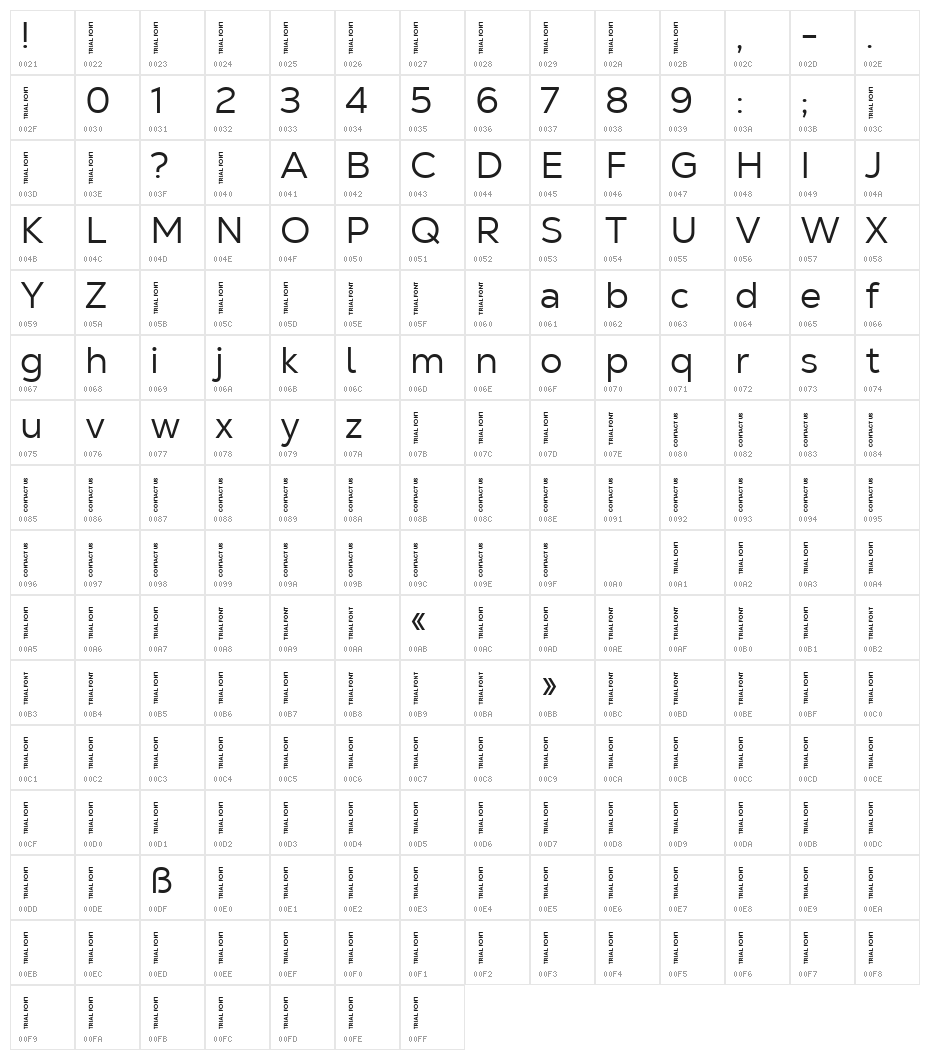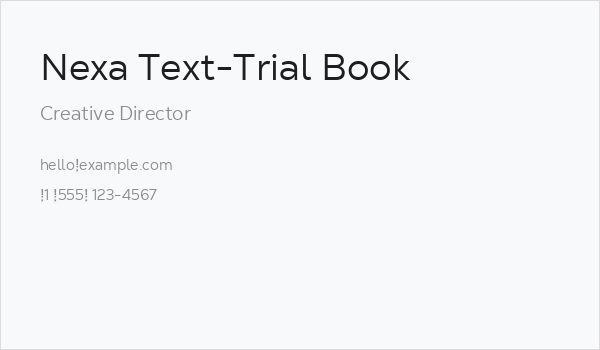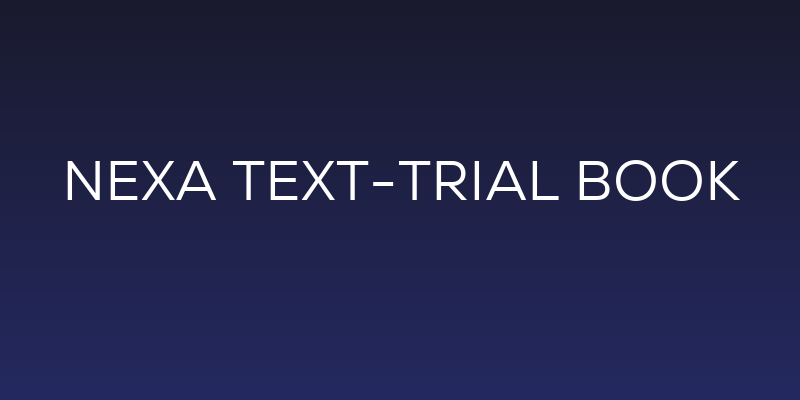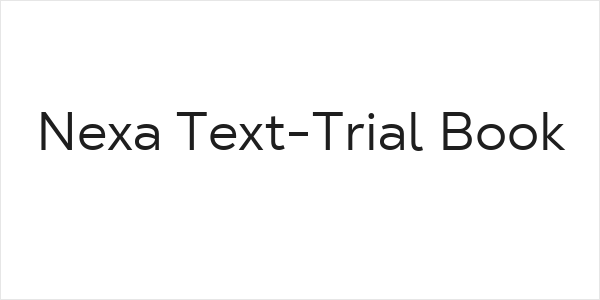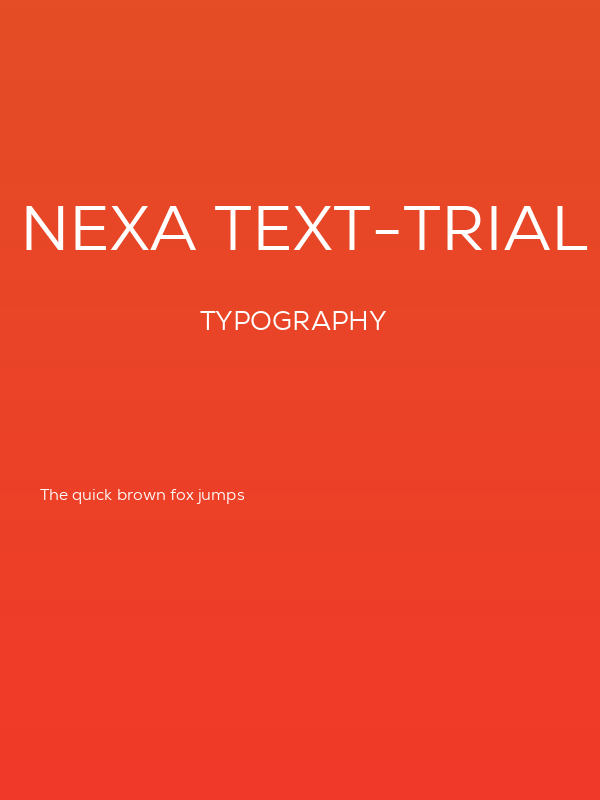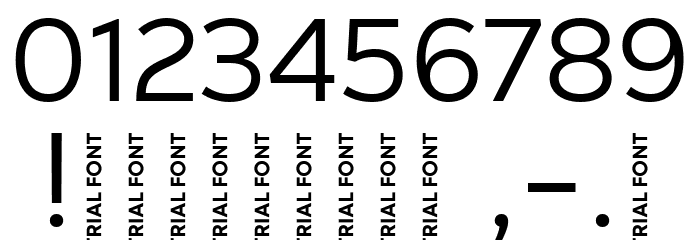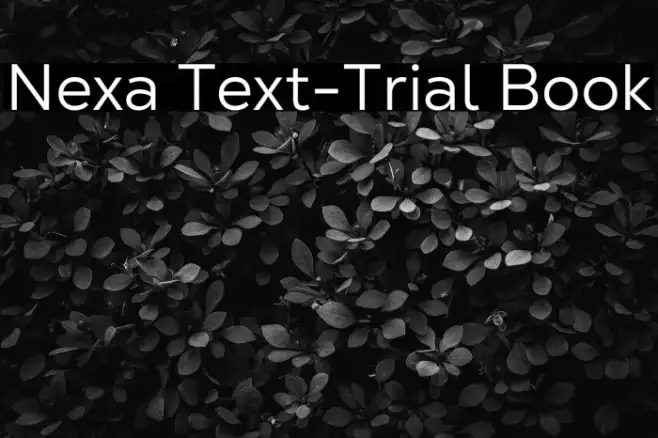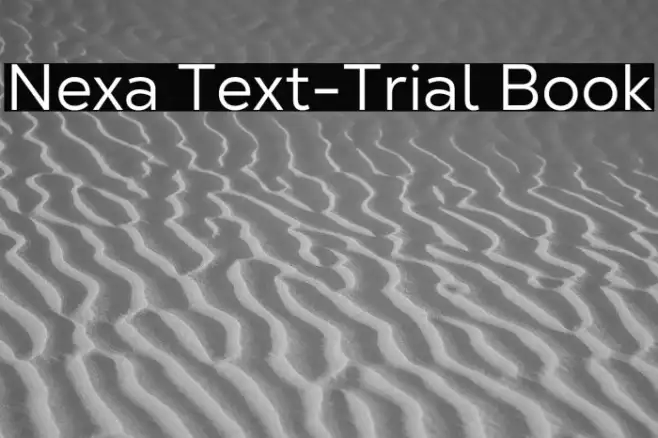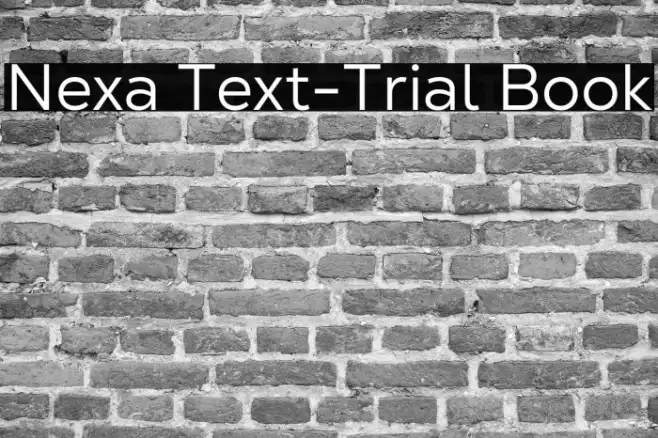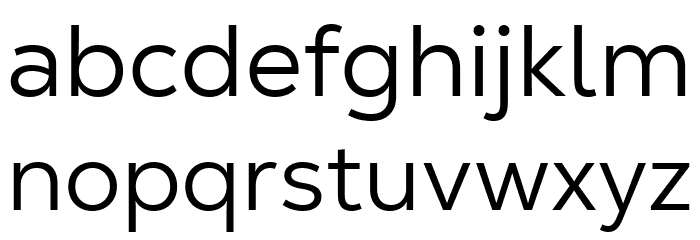
Nexa Text-Trial Book Font
Nexa Text-Trial Book Description
This font features a clean and modern sans-serif design with a geometric structure. The characters are well-balanced, offering a harmonious appearance that is both professional and approachable. The uppercase letters are bold and assertive, while the lowercase letters maintain a friendly and inviting tone. The numerals are clear and legible, making them suitable for various applications. Special characters are included, maintaining the font's overall aesthetic. The consistent stroke width and minimal contrast contribute to its versatility, making it ideal for both digital and print media.